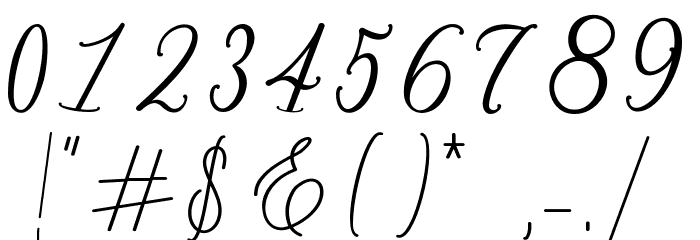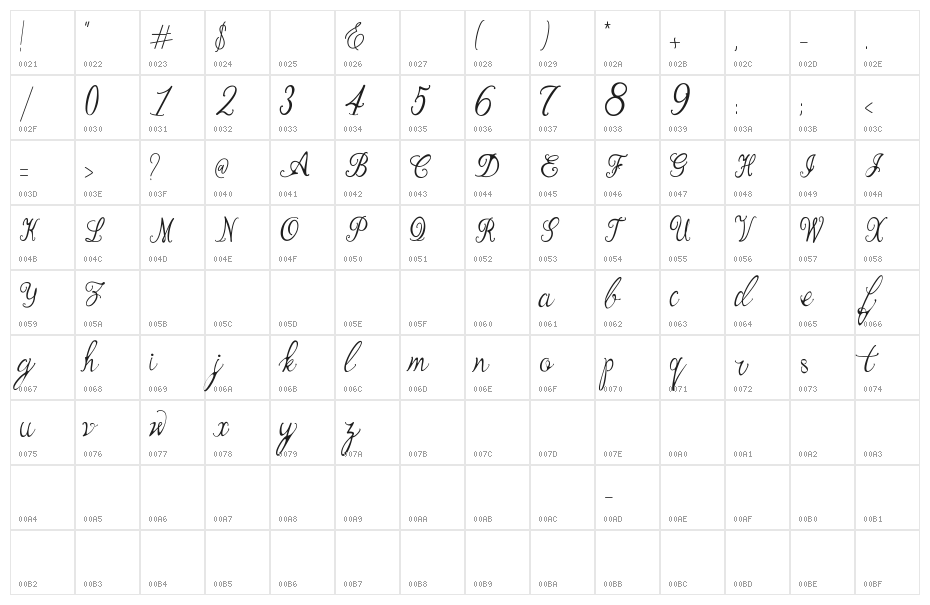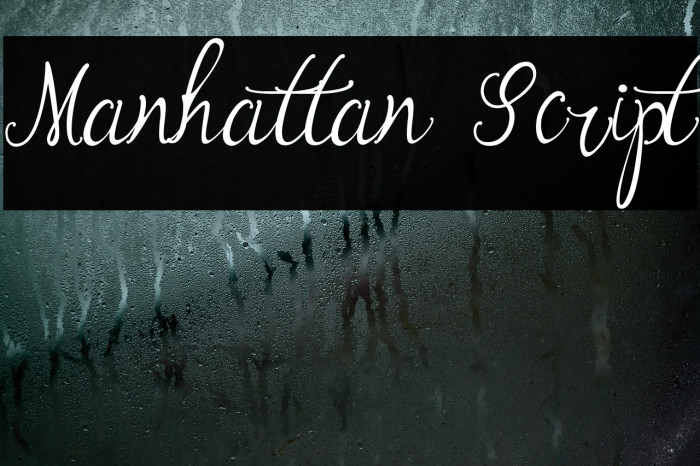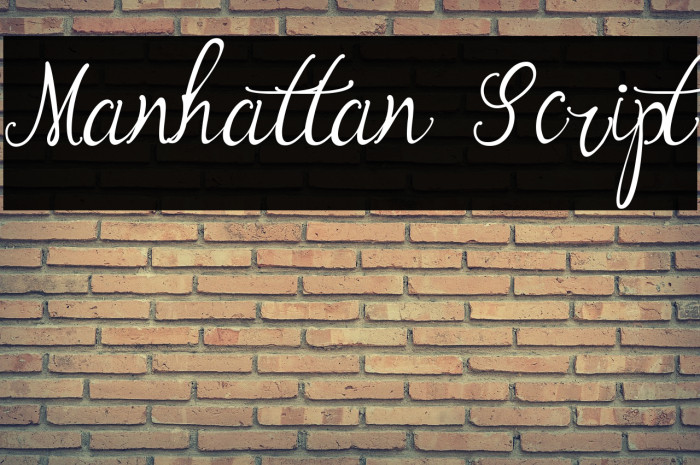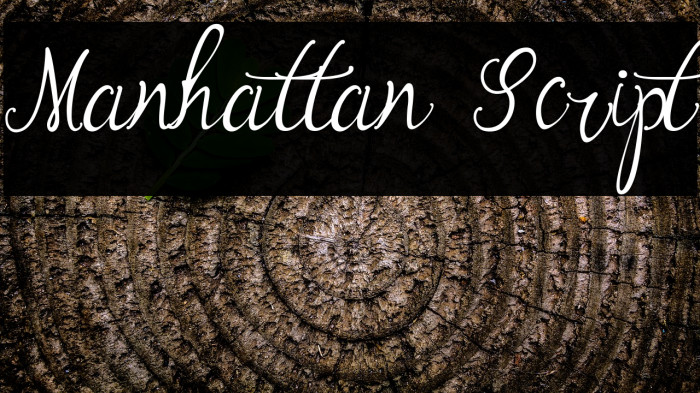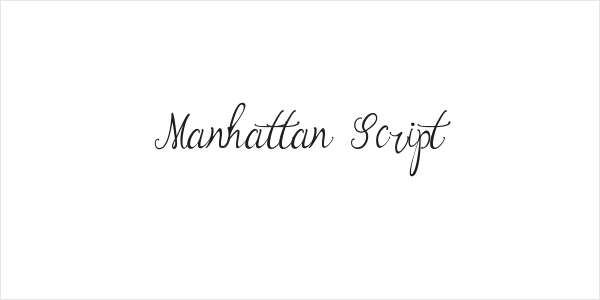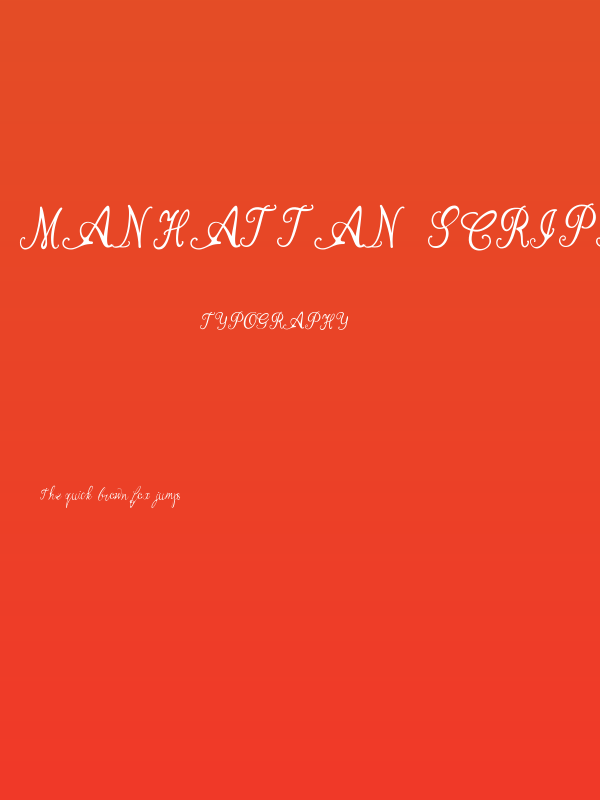
Manhattan Script Font
Manhattan Script Description
This elegant script font features a flowing, cursive style with intricate loops and swashes that give it a sophisticated and artistic appearance. The uppercase letters are ornate, with flourishes that extend beyond the baseline and cap height, creating a sense of movement and grace. The lowercase letters maintain a consistent slant, enhancing the fluidity of the text. Numbers and special characters are designed to match the script's decorative nature, making them suitable for creative and formal applications. The overall design is balanced, with a medium stroke contrast that adds to its readability while maintaining its decorative charm.
| Use Case | Logos, Invitations, Decorative Headlines |
| Proposed Projects | Ideal for wedding invitations, elegant branding, greeting cards, and decorative headlines. |